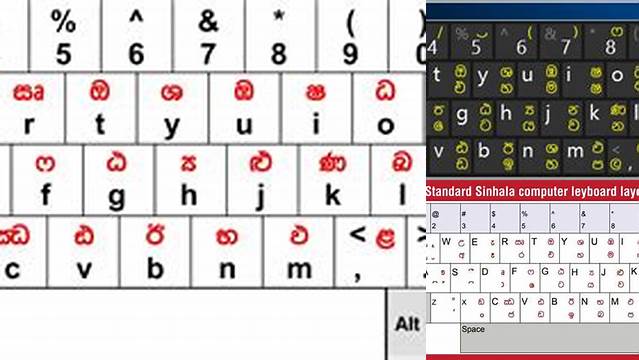
Free Sinhala Fonts & Keyboard Download: The Ultimate Guide
Hey guys! Ever wanted to type in Sinhala but found it a total pain? Well, you're not alone! Finding the right Sinhala fonts and keyboard can be tricky, but don't worry, we've got you covered. This guide is your one-stop shop for everything you need to know about free Sinhala fonts and keyboards. We'll explore where to find them, how to install them, and even some tips and tricks for typing like a pro. So, let's dive in and make typing in Sinhala a breeze!
1. Understanding Sinhala Font Types
So, you're ready to dive into the world of Sinhala fonts? Awesome! But first, let's chat about the different types of fonts you'll encounter. It's not just about picking something that looks pretty; understanding the technical differences will help you choose the right font for your needs. We're talking about everything from character encoding to stylistic variations. Trust me, knowing the basics will save you a lot of headaches down the road. This section will break down the key differences between various Sinhala font types, making sure you're well-equipped to make the best choice for your projects, whether you're designing a website, creating documents, or just want to spice up your social media posts. We'll explore the technical nuances, but don't worry, we'll keep it super approachable and easy to understand! Think of it as your crash course in Sinhala fontology – a fun and practical way to elevate your Sinhala typing game.
2. Popular Sinhala Font Styles for Free
Alright, now that we've covered the basics, let's get into the fun stuff: the actual font styles! There's a whole world of Sinhala fonts out there, each with its own unique personality. Some are elegant and traditional, perfect for formal documents or classic designs. Others are modern and playful, ideal for websites, social media, and creative projects. In this section, we'll showcase some of the most popular Sinhala font styles that you can download for free. We'll highlight their key characteristics, such as their legibility, stylistic flair, and ideal use cases. Think of this as your personal font shopping spree, but without the price tag! We’ll explore a range of styles, from the clean and professional to the more decorative and artistic. Whether you're looking for a font that's easy to read on screen or one that makes a bold statement, we'll help you find the perfect fit. So, get ready to discover your new favorite Sinhala font!
6. Understanding Sinhala Keyboard Layouts
Okay, you've got your fonts installed, but now you need a way to actually type in Sinhala! That's where keyboard layouts come in. Think of a keyboard layout as the map that tells your computer which Sinhala character corresponds to each key. There are several different layouts out there, each with its own arrangement of letters and symbols. In this section, we'll explore the most common Sinhala keyboard layouts, discussing their pros and cons and helping you choose the one that's right for you. We'll cover everything from the traditional layouts to the more modern, phonetic-based options. Think of this as your decoder ring for Sinhala typing! We’ll delve into the intricacies of each layout, highlighting their strengths and weaknesses. Whether you prefer a layout that closely mirrors the Sinhala alphabet or one that prioritizes ease of use for English speakers, we’ll help you find the perfect fit for your typing style and needs. Understanding the nuances of these layouts is the first step towards fluent Sinhala typing.
7. Free Sinhala Keyboard Software for Windows
Now that you understand the different layouts, let's talk software! To actually type in Sinhala on Windows, you'll need to install a Sinhala keyboard software. This software acts as the bridge between your physical keyboard and the Sinhala characters you want to type. There are plenty of free options available, each with its own set of features and quirks. In this section, we'll review some of the best free Sinhala keyboard software for Windows, highlighting their key features, ease of use, and compatibility with different Windows versions. We'll help you choose the software that best suits your needs and typing style. Think of this as your software shopping guide for Sinhala typing! We’ll explore the user interfaces, customization options, and overall performance of each software, ensuring you have a smooth and efficient typing experience. From virtual keyboards to phonetic layouts, we’ll cover a range of options to empower you to communicate effortlessly in Sinhala on your Windows computer.
8. Free Sinhala Keyboard Software for macOS
Mac users, we haven't forgotten about you! Just like Windows, you'll need a dedicated Sinhala keyboard software to type in Sinhala on your macOS device. Luckily, there are some excellent free options available for Mac as well. In this section, we'll take a look at the best free Sinhala keyboard software for macOS, highlighting their key features, compatibility with different macOS versions, and ease of installation. We'll guide you through the process of setting up the software and switching between different keyboard layouts. Think of this as your Apple-approved guide to Sinhala typing! We’ll dive into the integration of these software options with the macOS ecosystem, ensuring a seamless and intuitive typing experience. Whether you're using a traditional layout or a more modern phonetic approach, we'll help you find the perfect software to unlock the beauty of Sinhala script on your Mac.
9. Setting Up Sinhala Keyboard on Windows
So you've downloaded and installed your Sinhala keyboard software on Windows – great! Now it's time to actually set it up so you can start typing. This section is your step-by-step guide to configuring your Sinhala keyboard on Windows. We'll walk you through the process of adding the Sinhala keyboard layout to your system, switching between different languages, and customizing your keyboard settings. We'll also cover common issues you might encounter and how to troubleshoot them. Think of this as your personal tech support session for Sinhala typing! We’ll break down the often-intimidating process of language settings and keyboard preferences into easily digestible steps. From adding the Sinhala language pack to assigning keyboard shortcuts for quick switching, we’ll empower you to seamlessly integrate Sinhala typing into your Windows workflow.